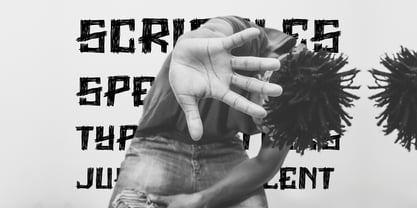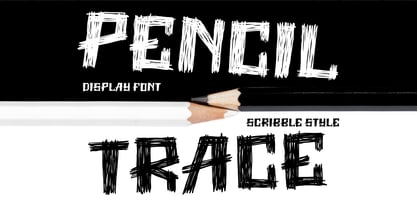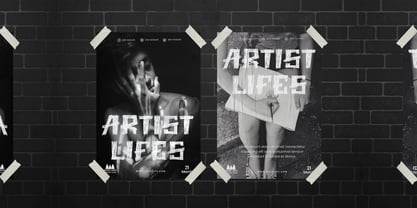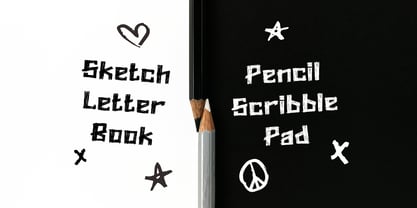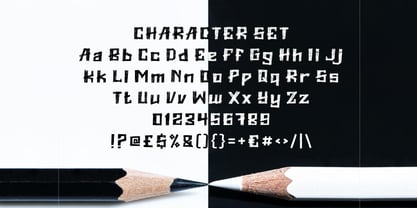
Pencil Trace
by Shanaf
The Pencil Trace Font Family was designed by Yesie Erma Yunita and published by Shanaf. Pencil Trace contains 1 styles. More about this family
Pencil Trace is a unique display font inspired by hand-drawn pencil marks and raw scribbles. Each letter has a sketched texture, filled with overlapping strokes and loose edges, creating an authentic scribbled look. It’s messy in the best way—bold, expressive, and packed with personality. The font includes uppercase, lowercase, numbers, and symbols, all drawn in a rough style that adds artistic charm. Whether you're designing a book cover, event poster, or personal journal title, this font brings out that creative, handmade feel.
This scribble-style typeface works especially well for youth-themed designs, creative branding, album artwork, kids’ projects, or DIY-style packaging. The contrast between its chaotic linework and structured letterforms creates visual tension that draws attention. Pencil Trace is a great fit for artists, educators, designers, and creators who want their work to look less polished and more personal. It’s made to look like it came straight from your sketchpad—because sometimes, rough is real.
Designers: Yesie Erma Yunita
Foundry: Shanaf